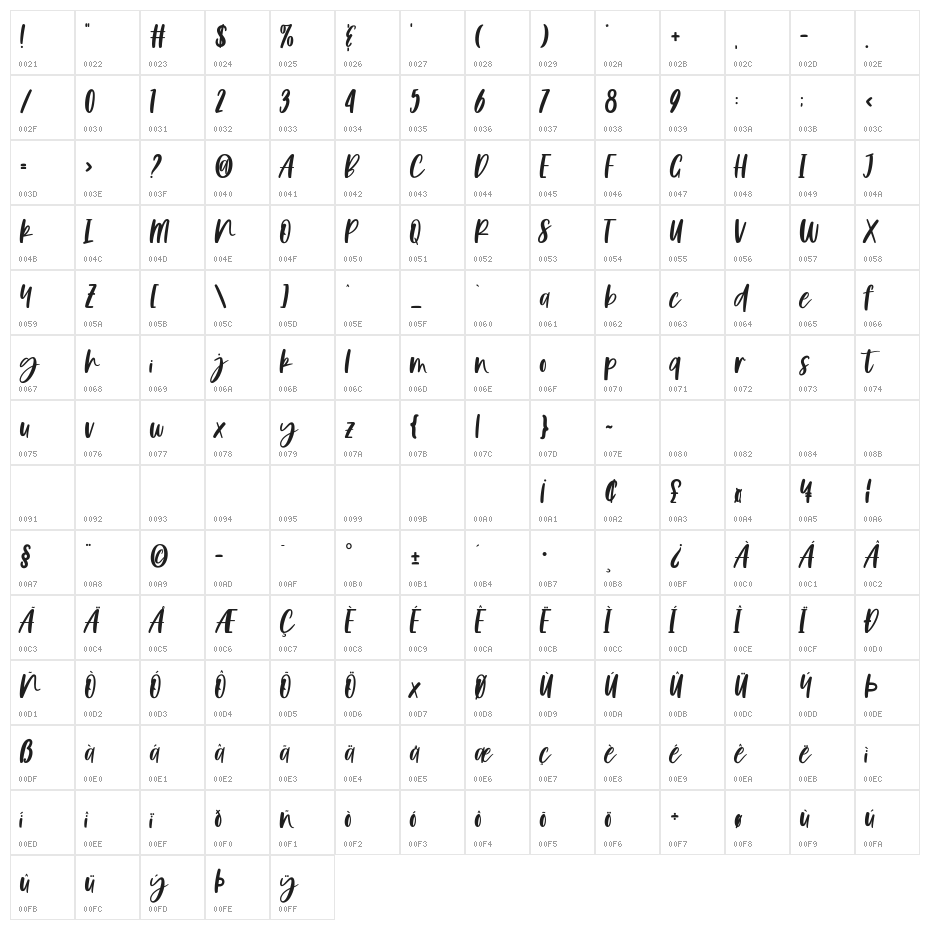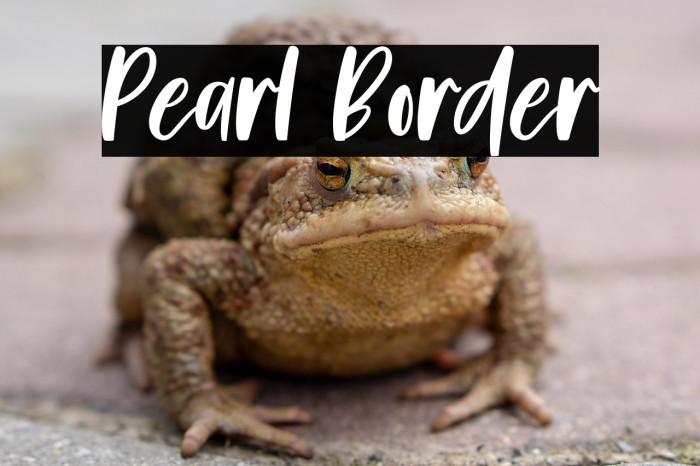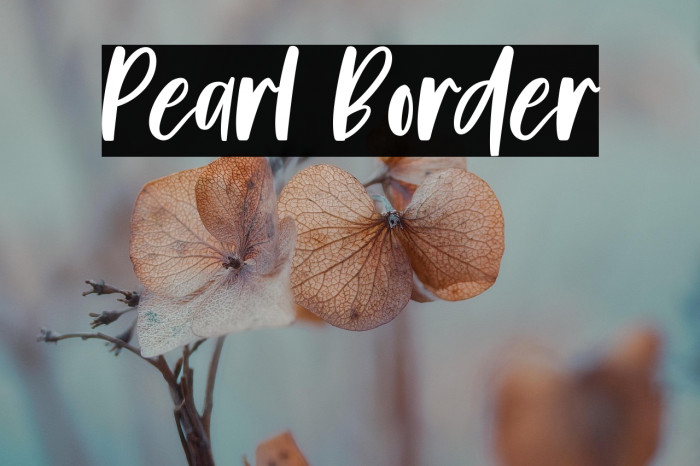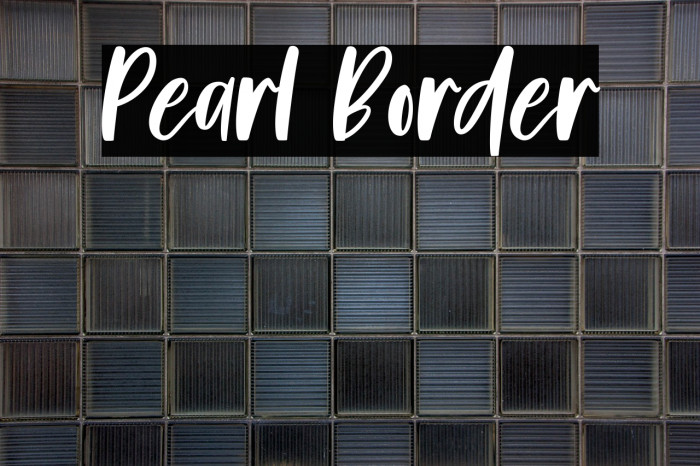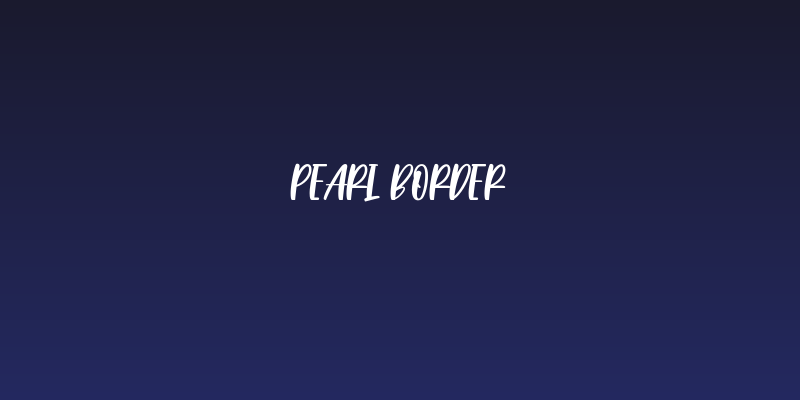
Pearl Border Font
Pearl Border Description
This font features a bold and expressive handwritten style, characterized by its fluid and dynamic strokes. The letters are connected in a cursive manner, giving it a personal and artistic touch. The uppercase letters are tall and slightly slanted, while the lowercase letters maintain a consistent flow, enhancing readability. The numbers and special characters follow the same stylistic approach, ensuring uniformity across all elements. This font exudes a sense of creativity and elegance, making it suitable for projects that require a personal and artistic flair.
| Use Case | Logos, Headlines, Invitations |
| Proposed Projects | Ideal for wedding invitations, greeting cards, branding, and artistic projects. |